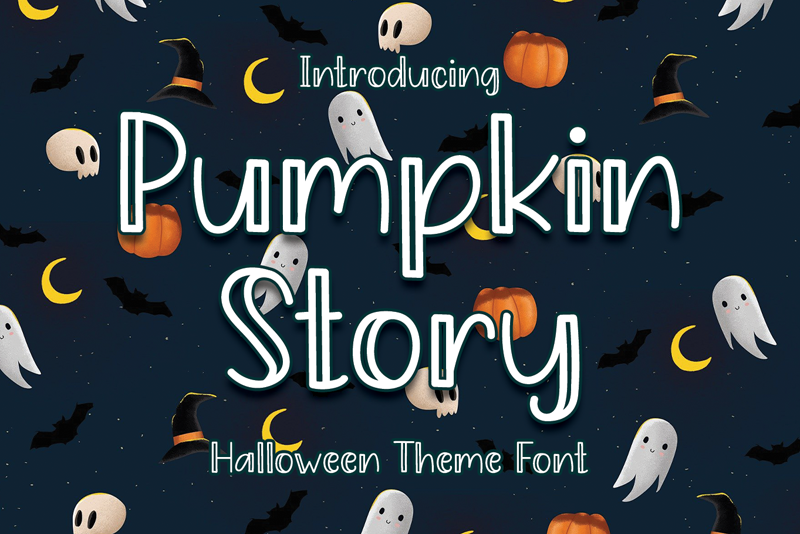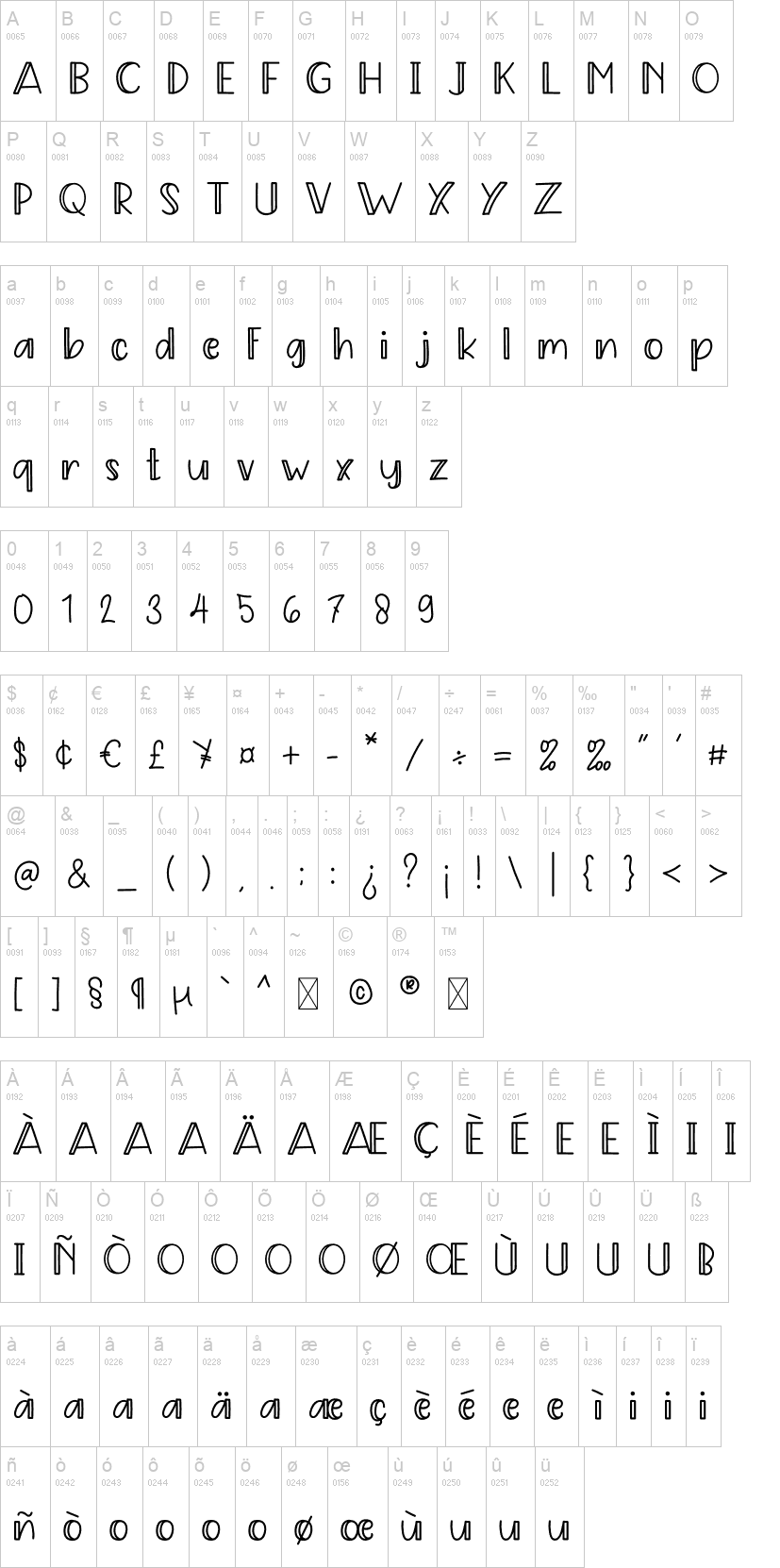
Note of the authorPumpkin Story is a cool and friendly display font. No matter the topic, this font will be an incredibly asset to your fonts library, as it has the potential to elevate any creation.